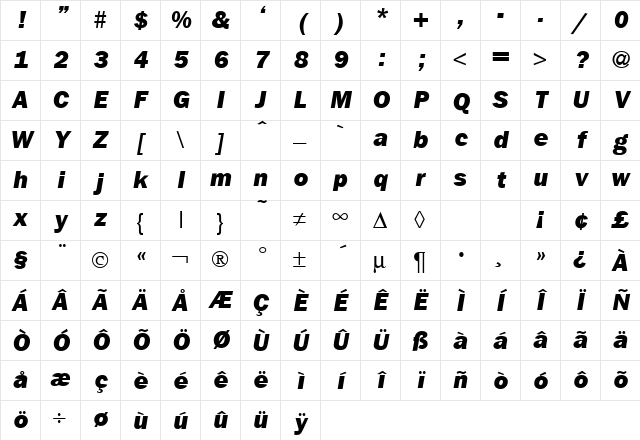
Complete FranklinGothicNewHeavy RegularItalic glyph index. Displaying only characters natively supported by FranklinGothicNewHeavy RegularItalic font.
FranklinGothicNewHeavy takes a clean, functional approach - its unadorned letterforms prioritise legibility and work reliably across screen and print environments. The slanted form adds forward momentum and visual energy.
Font Pairing: Works well alongside a characterful serif or display font that can carry the expressive load while FranklinGothicNewHeavy handles the functional copy.
Pro Tip: Use FranklinGothicNewHeavy for UI labels, navigation, and short-form body copy where clean legibility is the priority.